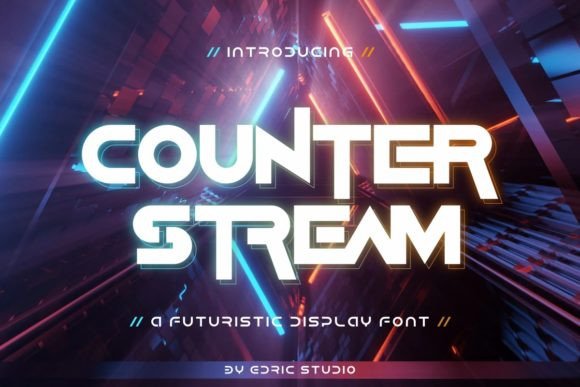
Welcome to the realm of Counter Stream, a font that's both cutting-edge and classic, a font that's more than just a digital adornment. It's a force to be reckoned with, a font that will redefine your creative horizons. Let's voyage into the world of Counter Stream Font, a display font that will ignite your imagination and give your designs a new lease of life.
With its bold and confident stance, Counter Stream Font is a technological marvel, designed to transport your ideas into the future. Every stroke, every angle, every curve is a testament to meticulous craftsmanship and a relentless pursuit of excellence. This sans serif font is an ode to the boundless possibilities of the digital world, a font that will leave you spellbound with its geometric precision and cutting-edge vibe.
Whether you're a seasoned designer or just starting out, Counter Stream Font is your passport to a world of endless creative possibilities. This font is uniquely tailored for tech-related designs, gaming projects, and any futuristic theme that demands a bold and striking presence.
Imagine your designs taking on a life of their own, commanding attention with their sheer boldness and confidence. Counter Stream Font is the perfect companion for logos, posters, headers, and any other design element that demands attention. Its sharp angles and sleek lines are like brushstrokes from the hand of a digital artist, painting your ideas in a mosaic of digital brilliance.
In a world of ordinary fonts, Counter Stream Font is your gateway to a world of extraordinary possibilities, a font that ignites creativity and fuels innovation. Don't settle for the mundane; embrace the brilliance of Counter Stream Font today and watch your designs reach new heights of digital splendor.